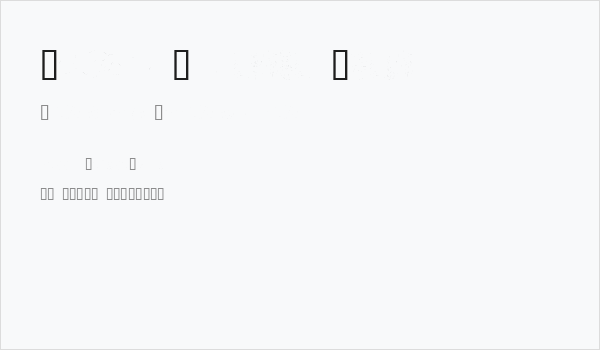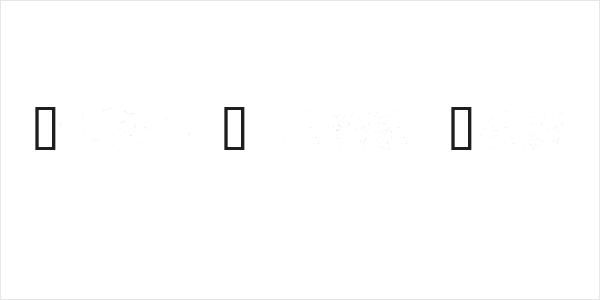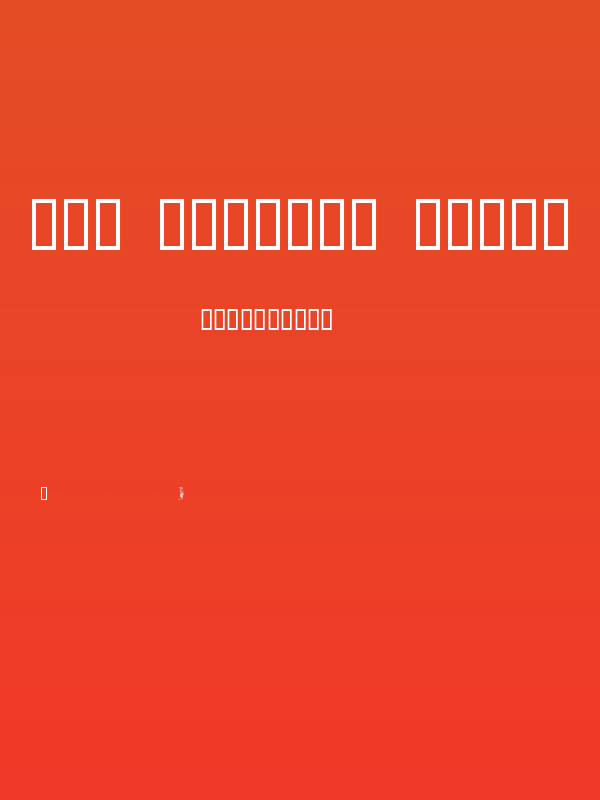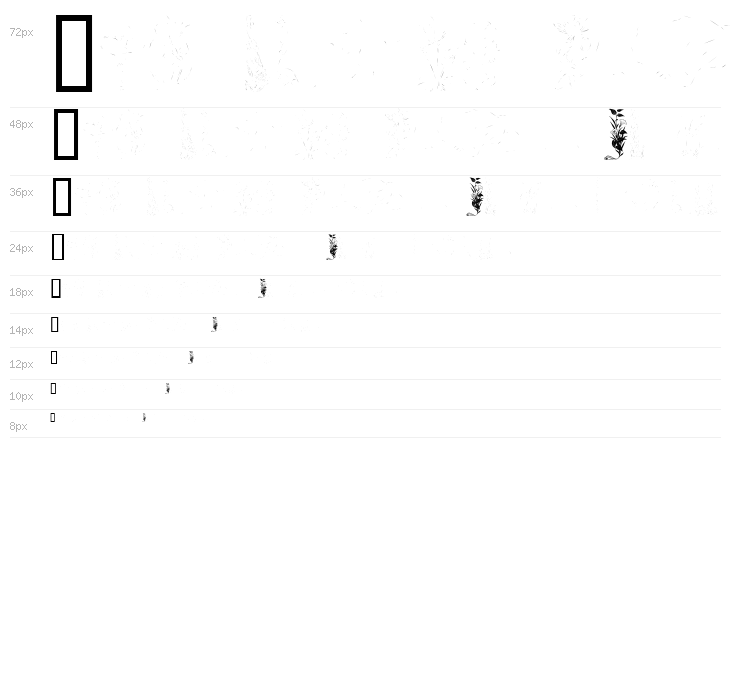
Art Nouveau Blume Font
Art Nouveau Blume Description
This font is a decorative typeface inspired by the Art Nouveau movement, characterized by its intricate and ornate design. Each character is embellished with floral and organic motifs, creating a sense of elegance and sophistication. The letters are highly stylized, with flowing lines and curves that mimic natural forms. This font captures the essence of the late 19th and early 20th centuries, reflecting the artistic and architectural trends of that era. Its unique style makes it suitable for projects that require a touch of vintage charm and artistic flair.
| Proposed Projects | Ideal for wedding invitations, vintage posters, book covers, and artistic branding. |